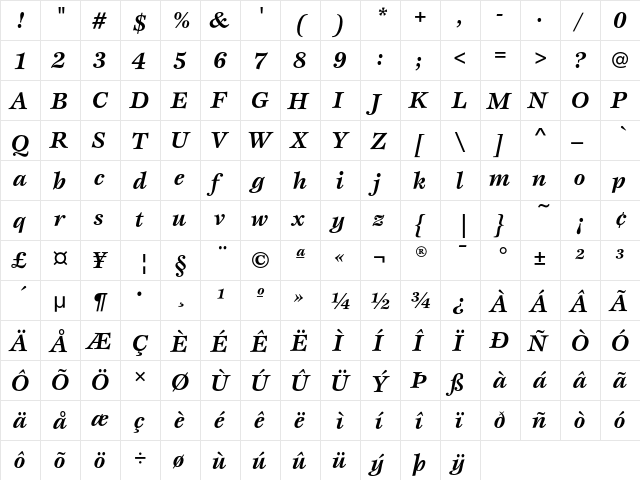
EspritEF BoldItalic
Design Context for EspritEF Typeface
EspritEF offers clean, dependable letterforms without strong stylistic allegiance, making it a practical choice for designers who need flexibility. The slanted form adds forward momentum and visual energy. The heavy weight commands attention and anchors typographic hierarchies.
Pro Tip: Try EspritEF for annotation and caption copy alongside an upright companion — the contrast in angle creates a dynamic but ordered typographic system.